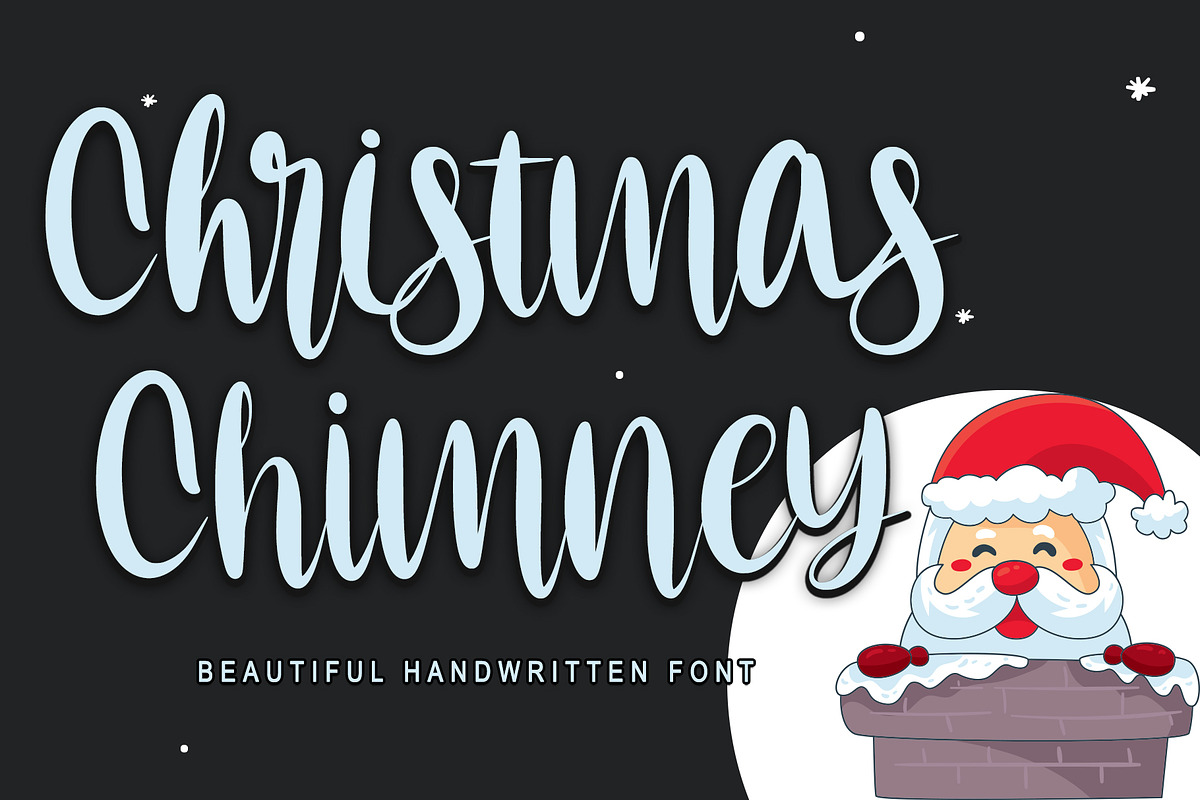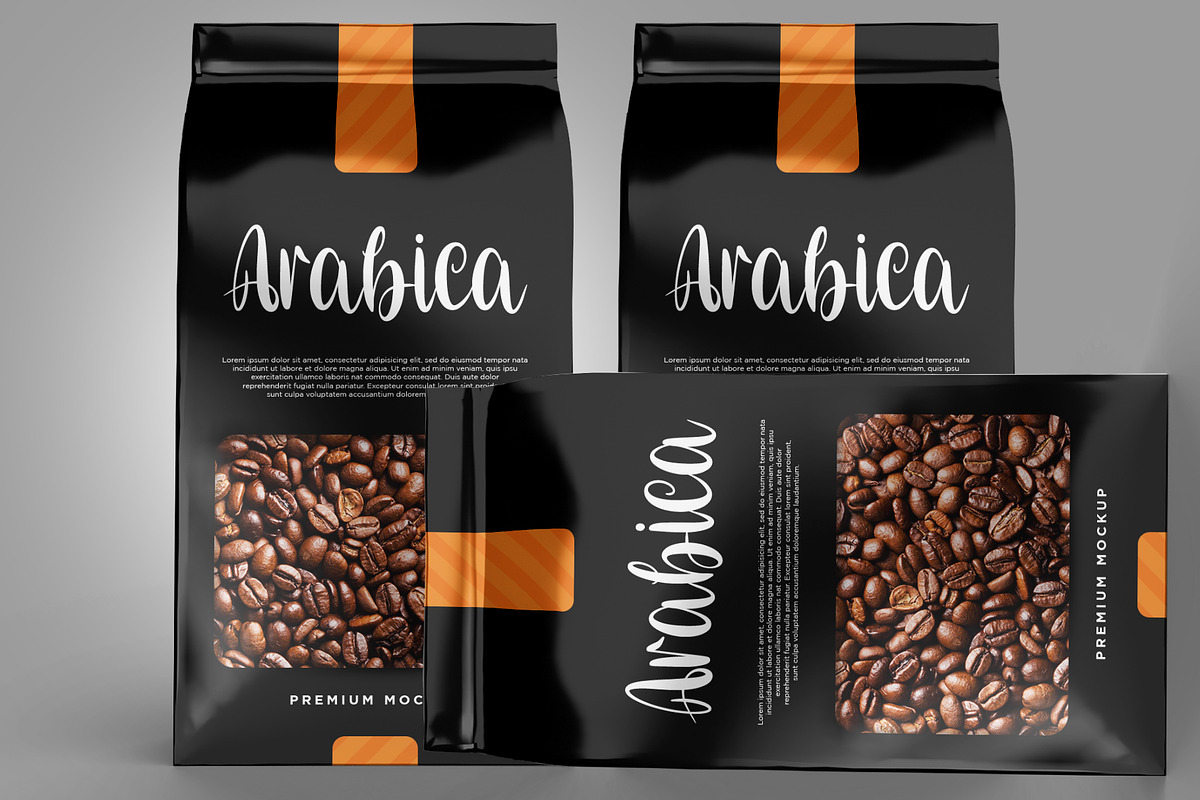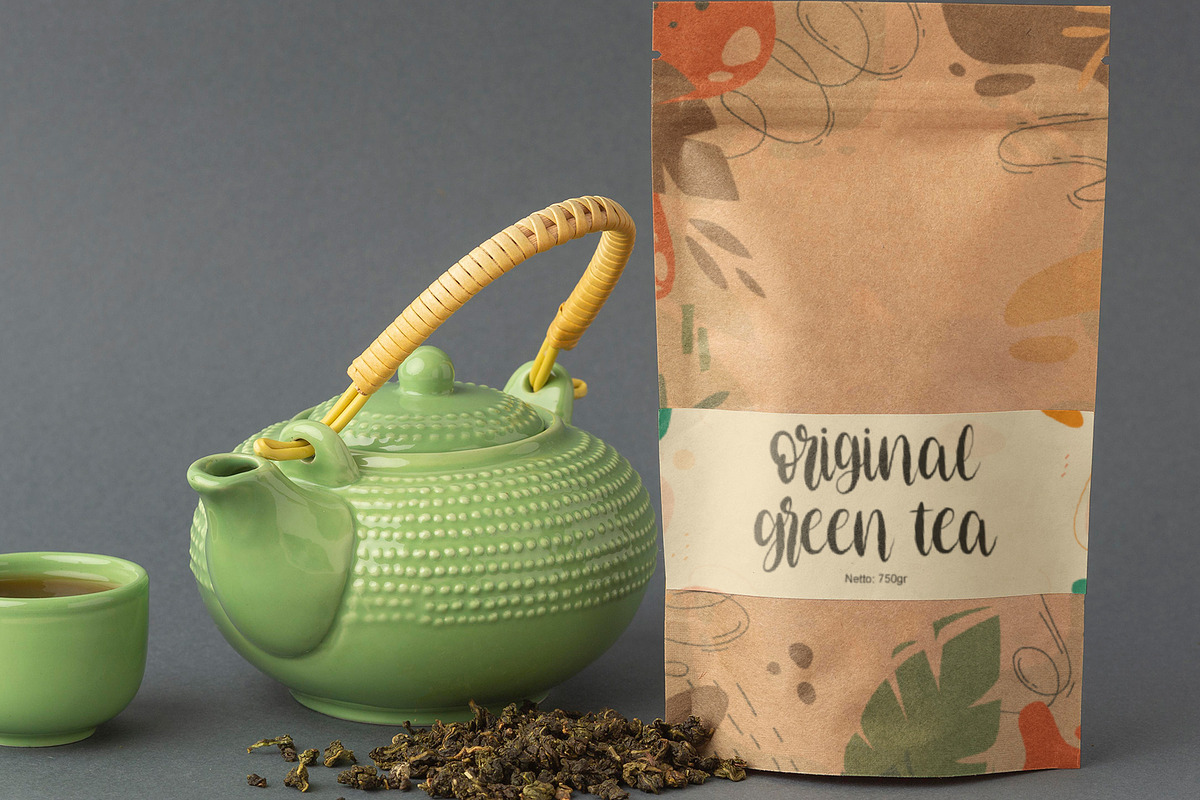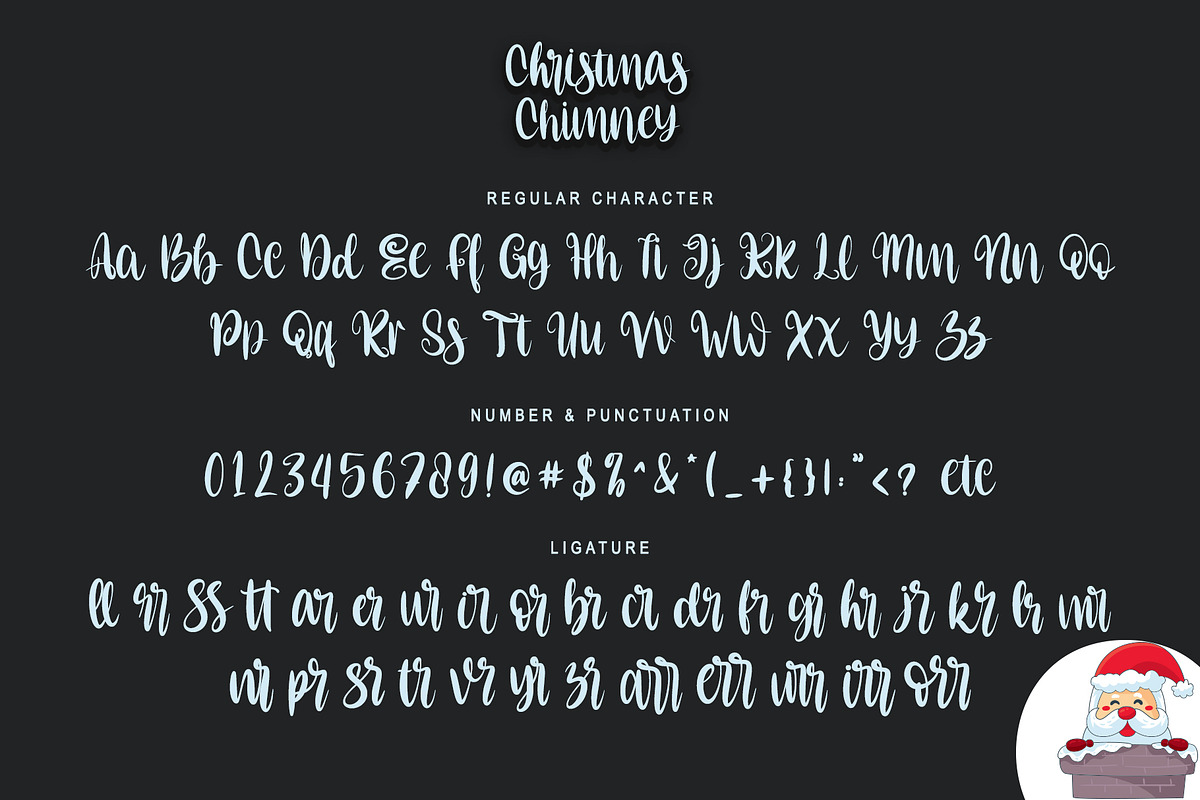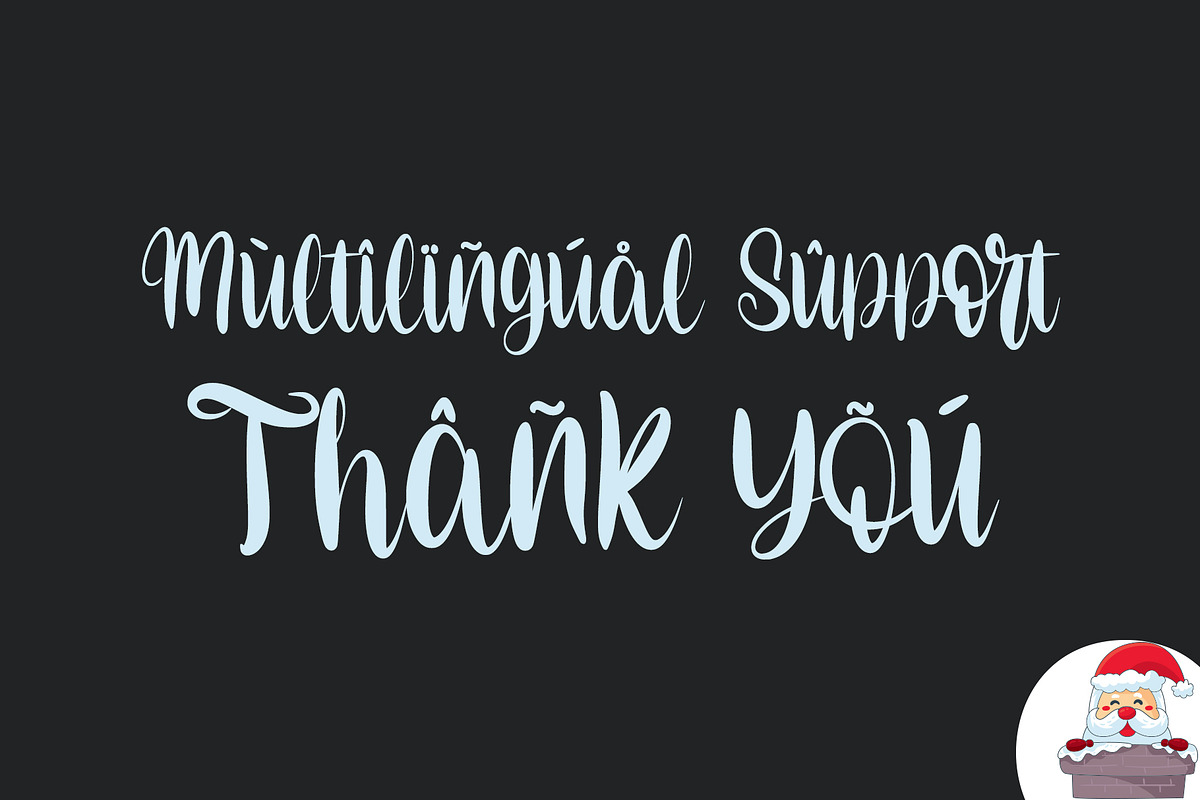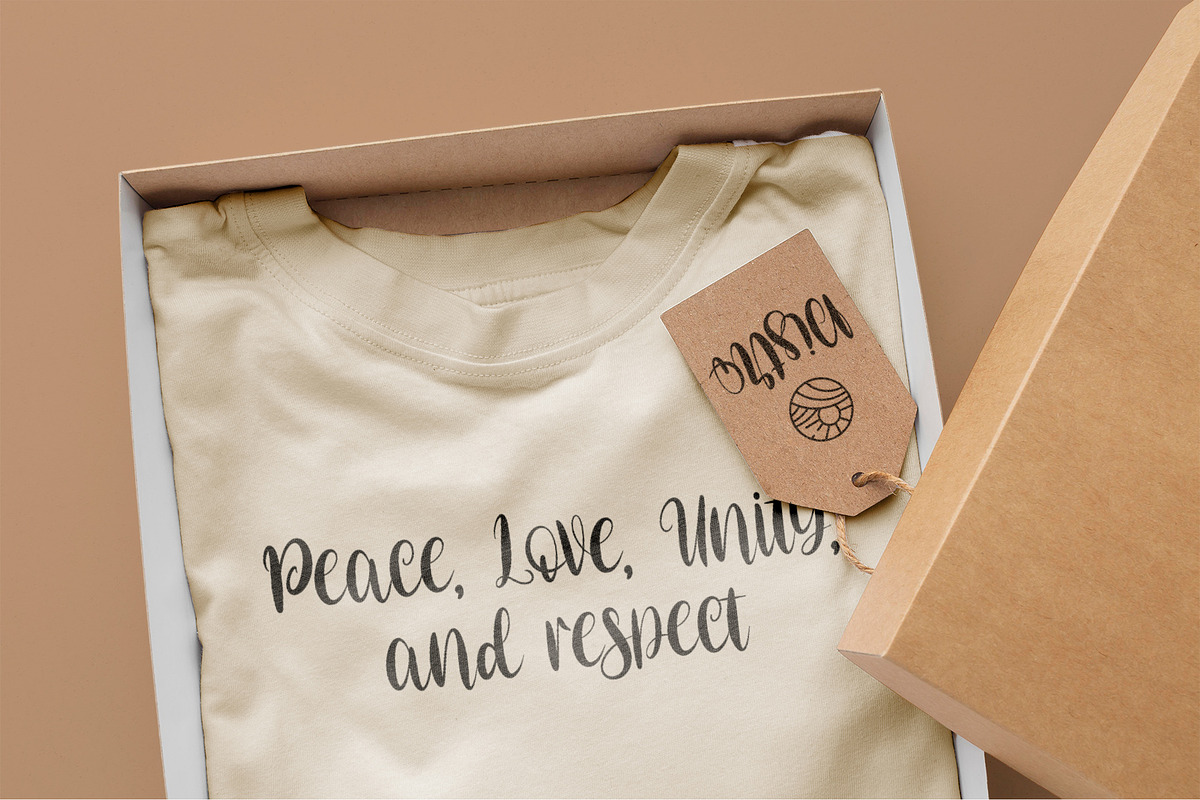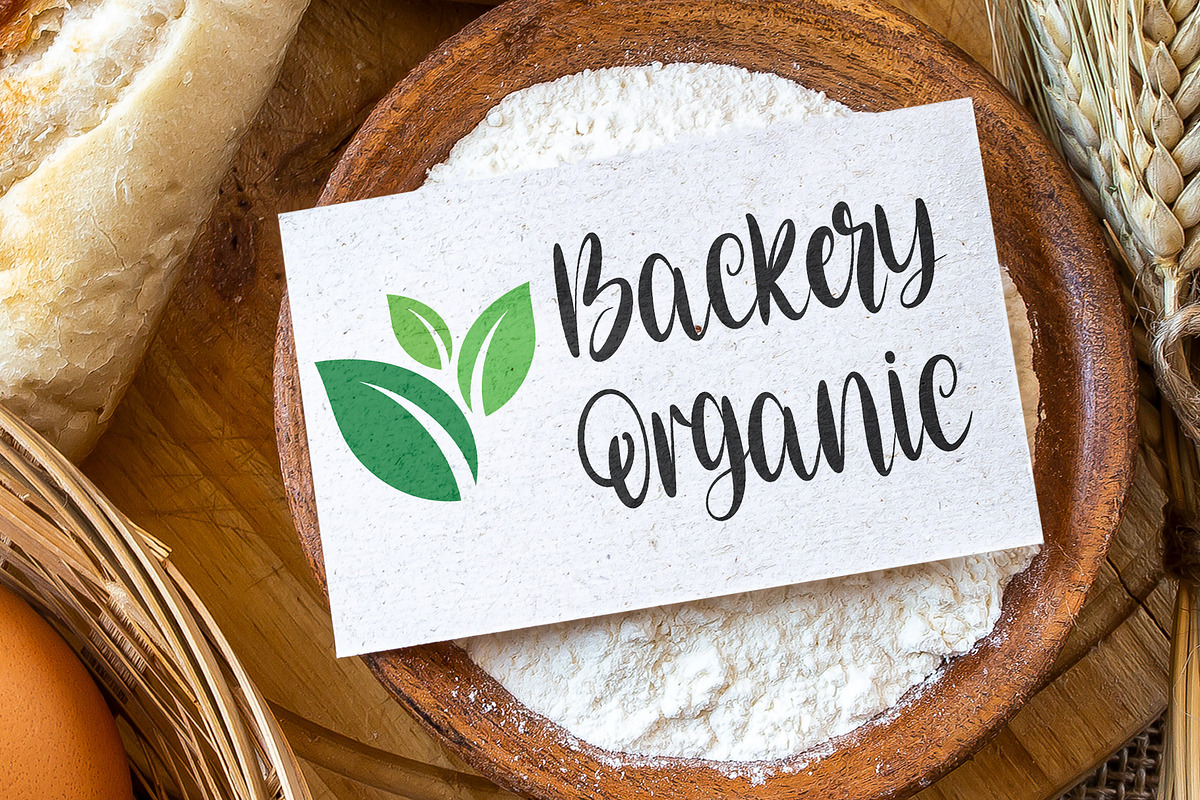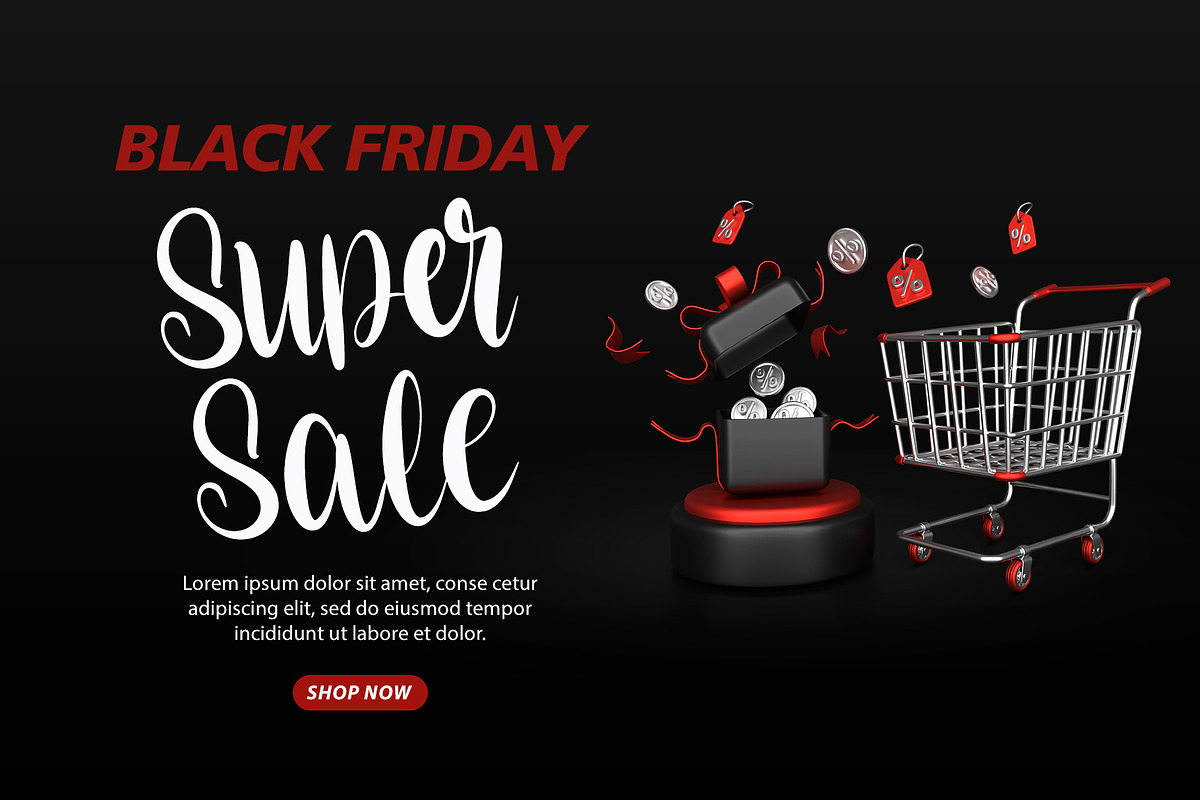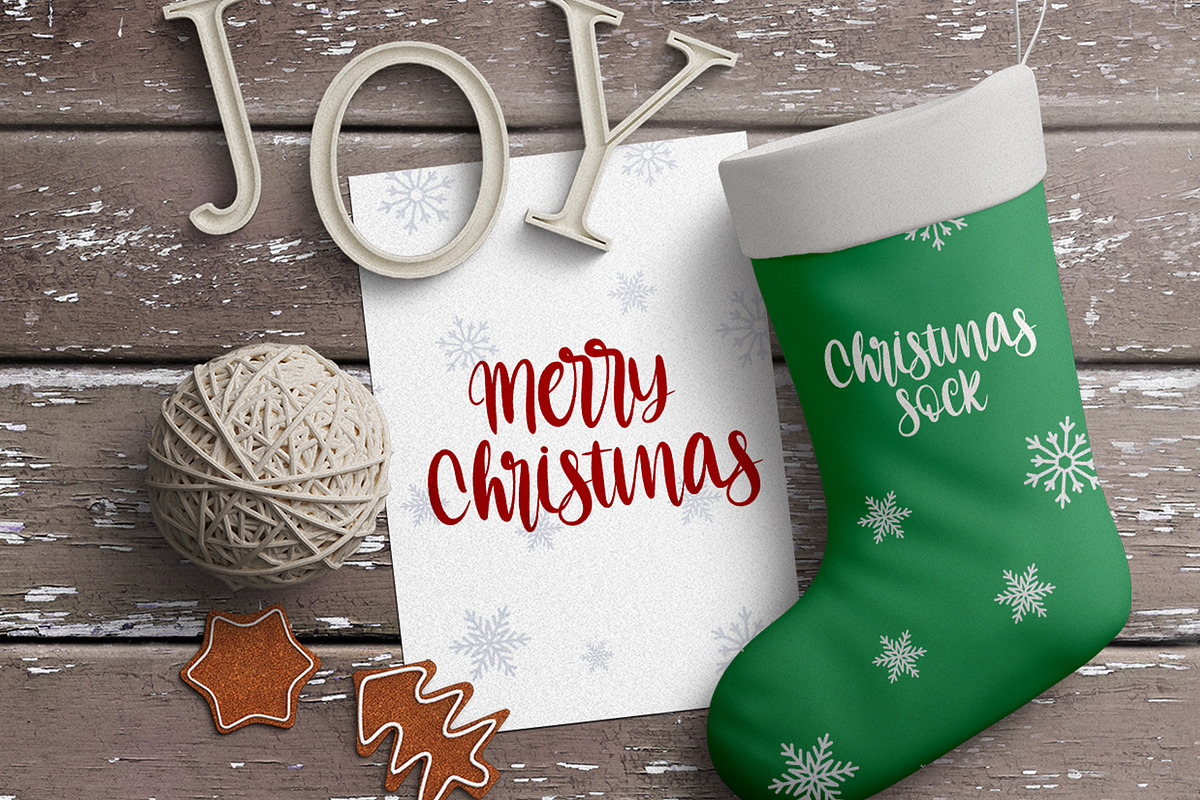
Christmas Chimney
A simple Christmas Chimney font looks unique and classy. Its beautiful charm makes it look absolutely stunning, easy to read, and, ultimately, incredibly versatile. This will add a fun and friendly touch to any of your projects, especially for the Christmas theme! This font is PUA encoded which means you can access all the glyphs and sweeps easily.
- Support multilingual; ä ö ü Ä Ö Ü ß ¿ ¡
- lowercase and uppercase letters
- ligature